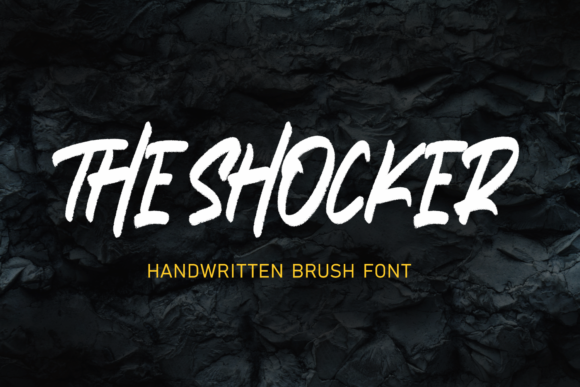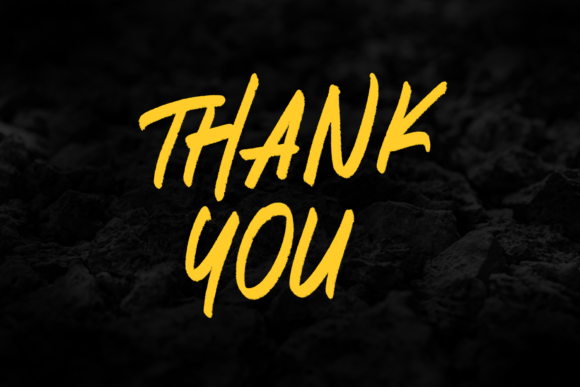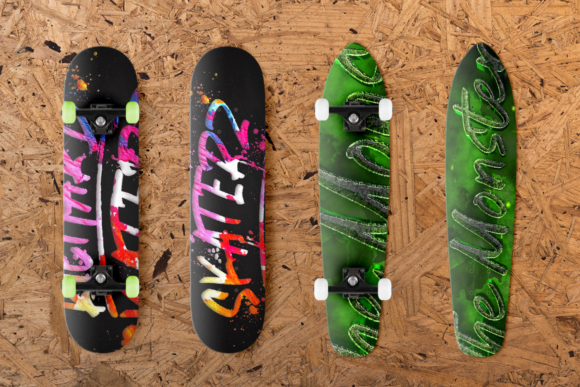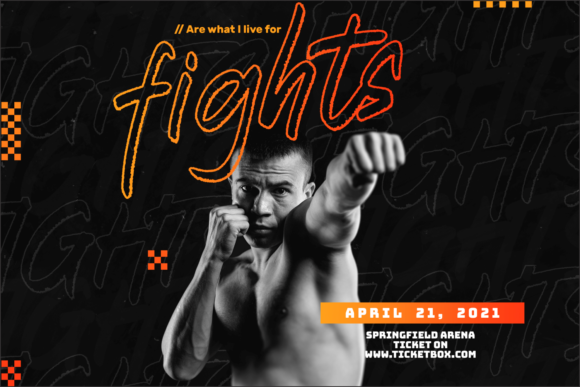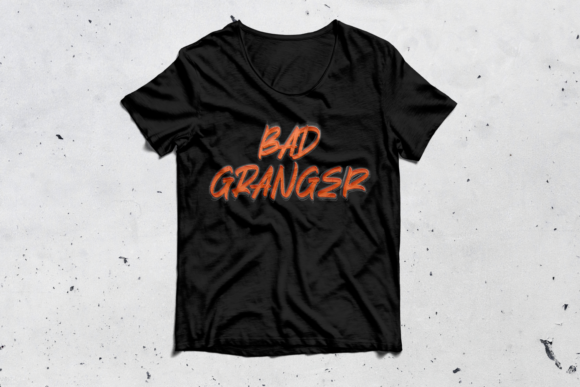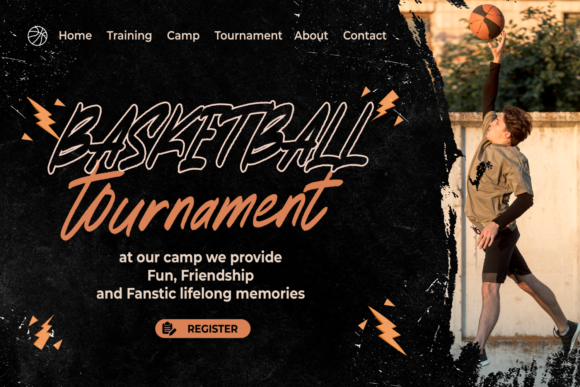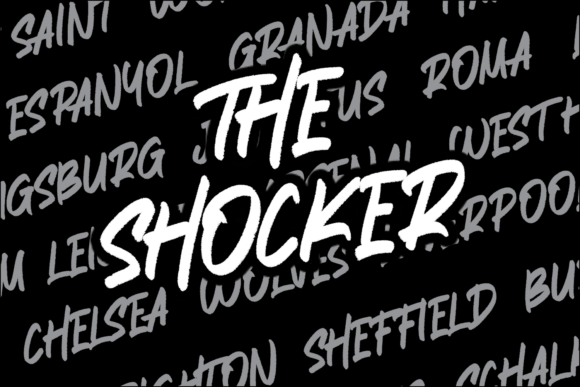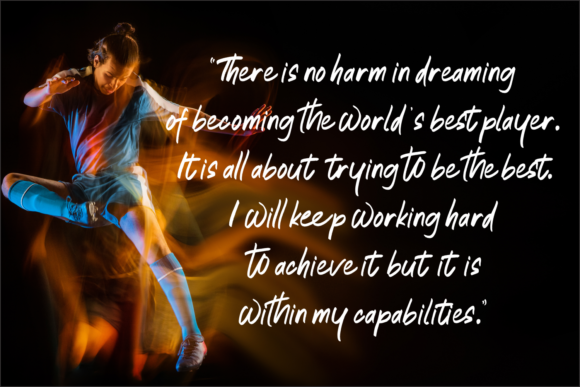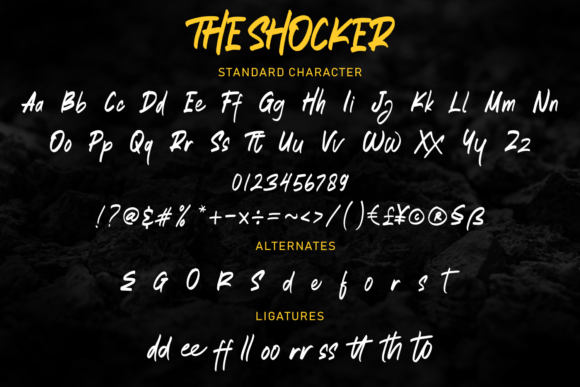
HomePersonal Use FreeThe Shocker Personal Use Free The Shocker FacebookXPinterestWhatsApp 1 of 10 About The Shocker Font The Shocker is a bold brushed display font. Add it confidently to each of the designs that you wish to put forth. DOWNLOAD NOW People also explored Glampers Font Amelia Font Aichella Font Heather Military Green Bella Canvas 3001 Ashemark Font Miwmu New Font Amelia Font Wedding Valentine Font First Blood Font 456 0 TagsThe Shocker Font Previous articleMounetsNext articleLollipop Melody LEAVE A REPLY Cancel reply Comment: Please enter your comment! Name:* Please enter your name here Email:* You have entered an incorrect email address! Please enter your email address here Website: Save my name, email, and website in this browser for the next time I comment. Personal Use Free Fifteenth Century Personal Use Free Read more about this font Vincent Familiante Personal Use Free Read more about this font Bridgetown Font Personal Use Free Read more about this font Hello December Personal Use Free Read more about this font BLOG How to Install and Use Fonts on Windows, macOS, and Web Projects How to Install and Use Fonts on Windows, macOS, and Web Projects Fonts are a crucial part of design and branding. Whether you’re designing a... Where to Buy American Fonts Online in 2024 Exploring Font Trends Free Fonts Risk: Why Free Fonts Can Be Dangerous for Designers